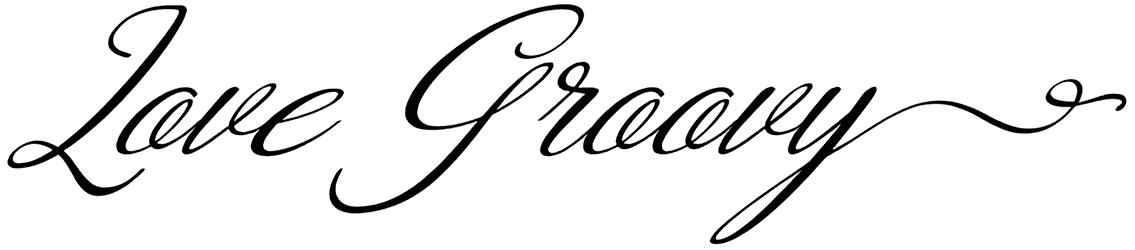
Love Groovy Font
Your typography will make an artistic turn in offering a creative assortment with this calligraphy font; just take a look to capture the fantastic elaboration of its romantic cursive characters that offer a challenging reading in some parts, composing in a creative ordering to bring an elevated point to any writing design.
Make sure that this Love Groovy can show its best image to put the accent on many forms of flyers, greeting cards, branding, feminine apparel, or whatnot.